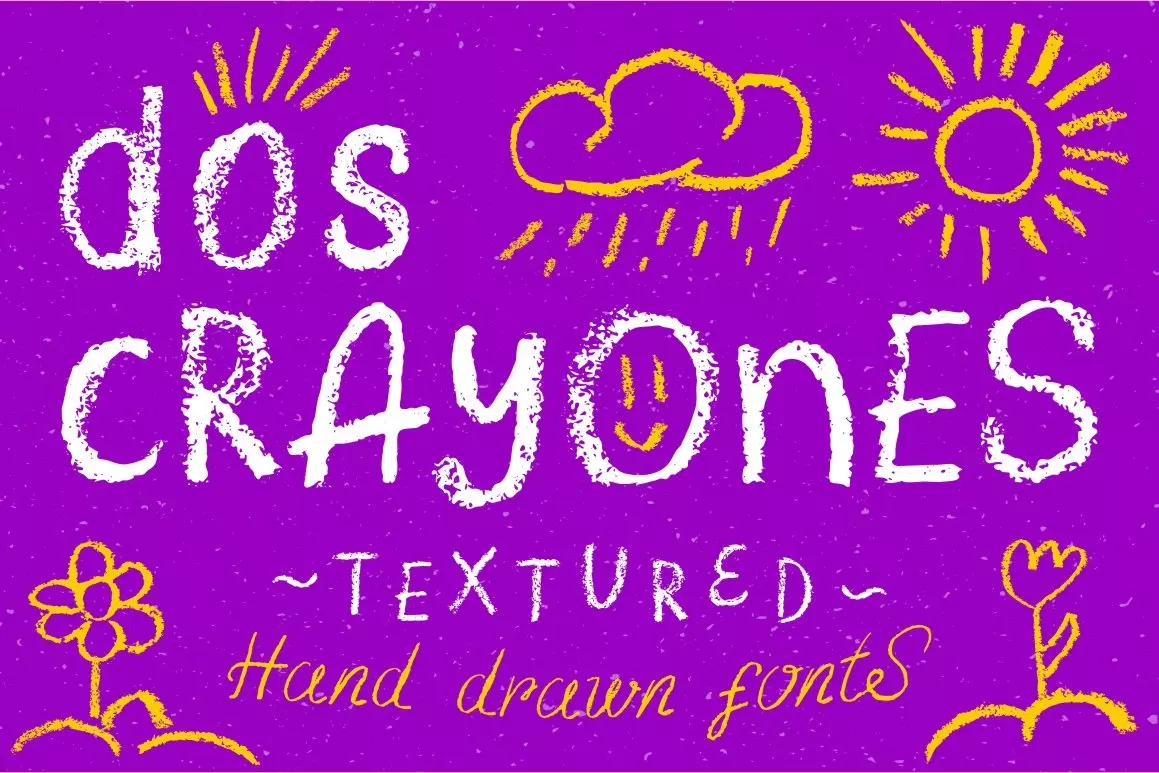
Dos Crayones 2 Textured Fonts is perfect for children's branding, playful product packaging, kids' party invitations, educational materials, toy packaging, creative workshop designs, art class promotions, childcare center branding, playful social media graphics, youthful marketing campaigns, craft project designs, and any design project requiring an authentic handmade crayon aesthetic.
What makes Dos Crayones 2 Textured Fonts exciting is its genuine crayon-textured appearance that captures the joy and creativity of childhood artistic expression. The font's authentic handcrafted texture evokes nostalgia and playfulness, making it ideal for brands targeting children and families or anyone seeking to communicate fun and creativity. Its organic imperfections add character and warmth, helping designers create approachable and engaging content that resonates with audiences seeking authentic and imaginative visual experiences.
The Dos Crayones 2 Textured Fonts family typically includes two distinct textured variations, uppercase and lowercase characters, numerals, punctuation marks, and authentic crayon-style texture effects.
Looking for the Dos Crayones 2 Textured Fonts Free Download? This delightful typeface brings genuine childhood creativity to every design project, combining authentic crayon textures with functional typography. Whether you're developing children's brands, creating educational materials, or crafting playful marketing content, this font delivers the handmade charm and youthful energy needed to communicate fun and creativity across all applications.